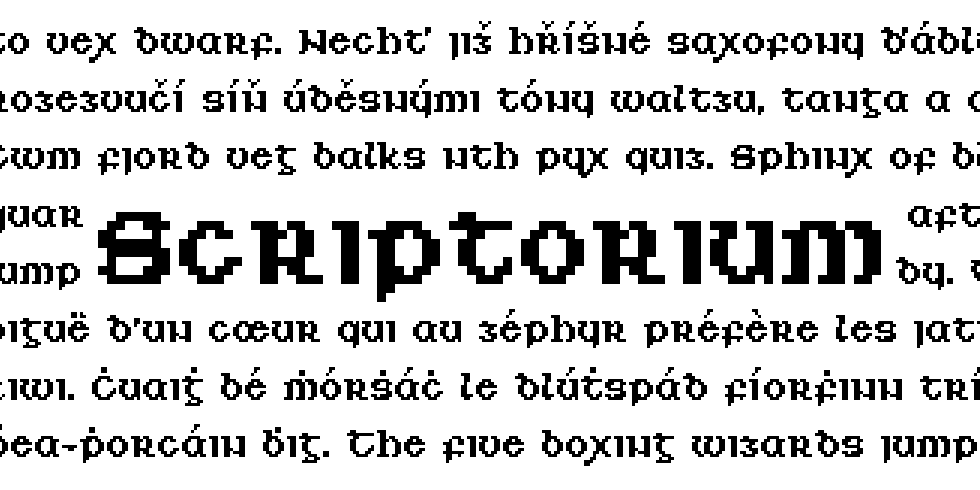
Inspired by the Lindisfarne Gospel illuminated manuscript and other examples of Insular script circa 5th-7th century Ireland. The uppercase is based on uncial majuscules, the lowercase is based on half-uncial miniscules.